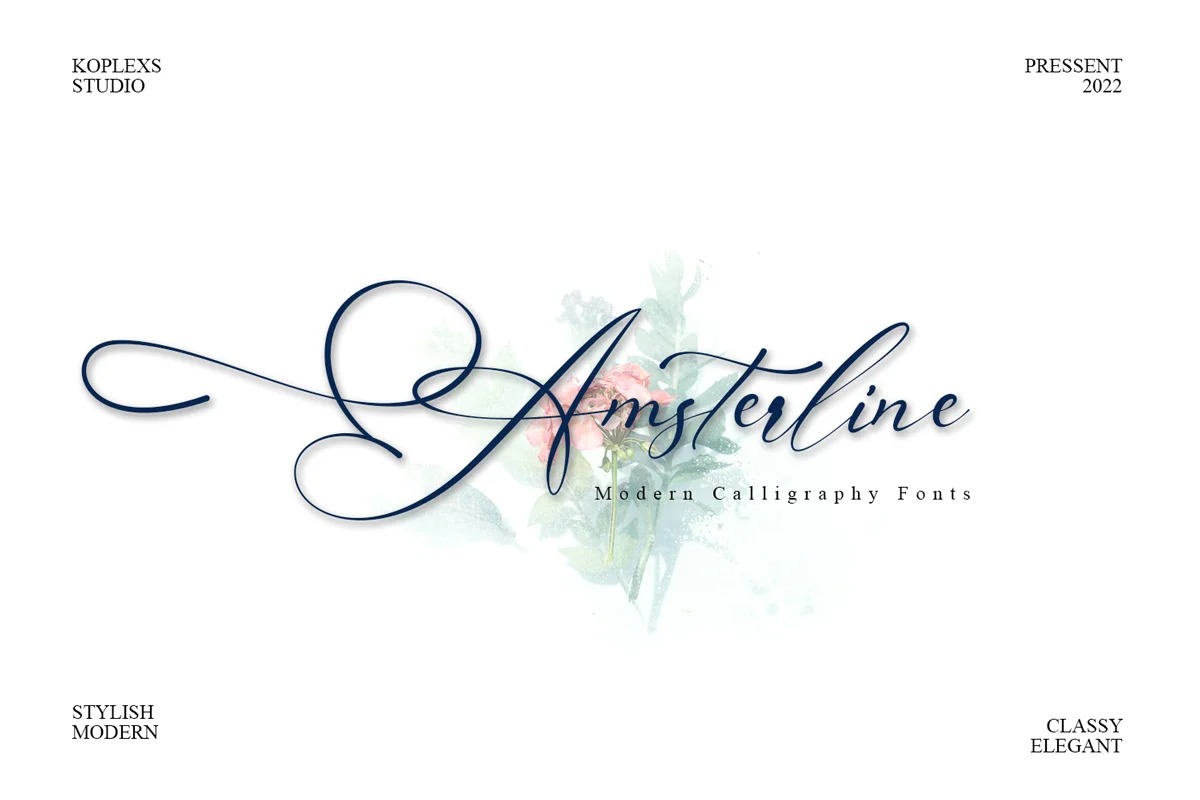
Amsterline Calligraphy Font
This is an unique, romantic calligraphy typeface created by Koplexs Studio with characters dancing along the baseline. It has a casual yet elegant touch. Amsterline Very suitable for use in making greeting card designs, Instagram posts, logo designs, wedding designs, social media posts, advertisements, product packaging, product designs, labels, photography, watermarks, invitations, stationery,wedding texts, romance quotes and so on, the first is about love.